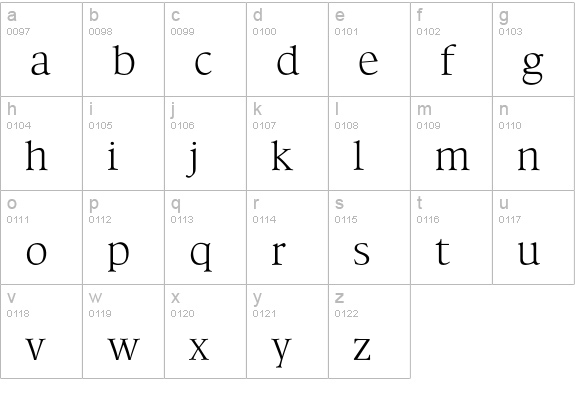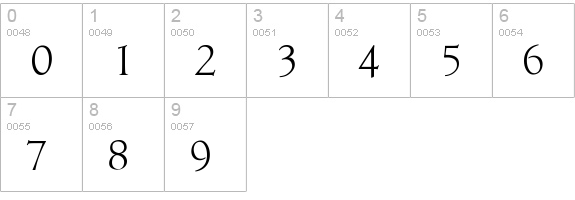
TFHabitat-Regular Font Details
TFHabitat-Regular is the standard, neutral variant in the TFHabitat typeface family \xE2\x80\x94 well suited to general body text, paragraphs, and standard typographic work.
TFHabitat-Regular is a versatile and modern font that exudes a sense of contemporary sophistication. Its clean lines and balanced proportions make it suitable for a wide range of design projects, from branding and advertising to web design and print materials. This font has a unique character that effortlessly combines elegance with simplicity. The smooth curves and sharp edges create a harmonious balance, making each letter stand out with its own distinct personality. Whether used for headlines, body text, or captions, TFHabitat-Regular adds a touch of professionalism and refinement to any project. One of the most appealing aspects of TFHabitat-Regular is that it is freely available to download at FontsMarket.com. This means that designers and creatives can easily access and utilize this stunning font without any cost. The fact that it is free makes it even more valuable and accessible to a wide range of users. With TFHabitat-Regular, you can elevate your designs to new heights, effortlessly capturing attention and leaving a lasting impression. Its versatility and timeless appeal make it a must-have in any designer's toolkit. Whether you are creating a logo, designing a website, or crafting a poster, TFHabitat-Regular is the perfect choice to enhance your visual communication and bring your ideas to life.